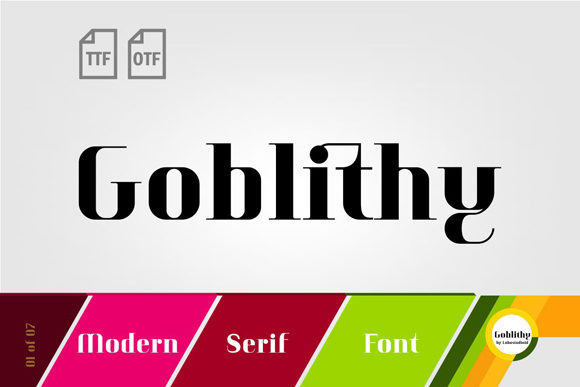
**Goblithy Font: A Legendary Serif for Extraordinary Expressions**
Unleash your imagination with the whimsical and enchanting Goblithy font, a charismatic serif that will cast a spell on your designs. Crafted with meticulous precision by Labastudioid, this font is the epitome of captivating typography.
With Goblithy, every letter becomes a whimsical adventure, embodying the essence of playfulness and authenticity. Its energetic curves and captivating swashes dance across the page, drawing the eye into a realm of creative enchantment. Whether you're crafting captivating headlines, weaving enchanting tales, or conjuring stunning logos, Goblithy will transform your words into visual masterpieces.
Goblithy's versatility is truly magical, effortlessly adapting to a myriad of design styles. From mischievous and playful to elegant and sophisticated, this extraordinary typeface effortlessly weaves its charm into every project. Its delicate flourishes and enchanting details add a touch of whimsy to invitations, posters, and social media graphics, while its solid structure and undeniable readability ensure clarity and impact in website headlines and marketing materials.
Step into a world of typography where imagination knows no bounds. With Goblithy, you possess the power to craft unforgettable designs that will linger in the minds of your audience long after the final scroll. Its ability to evoke emotions and capture the essence of a brand makes it an indispensable tool for designers, marketers, and creative visionaries alike.